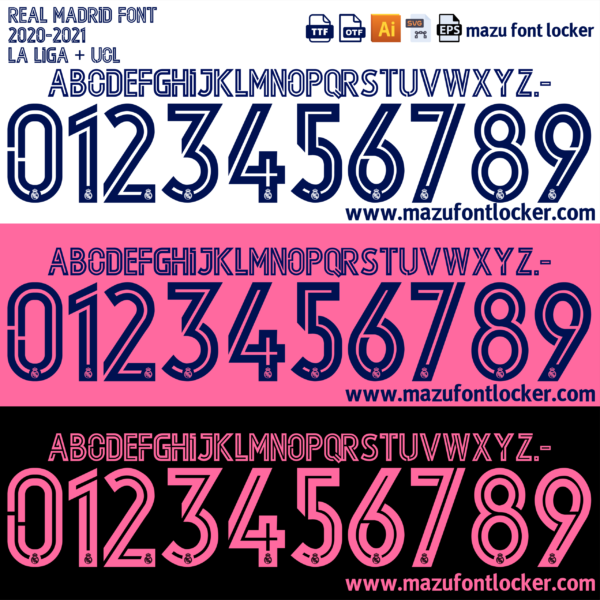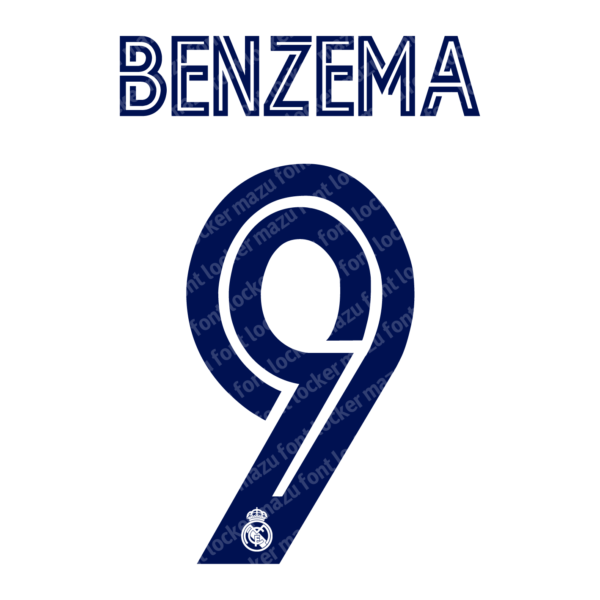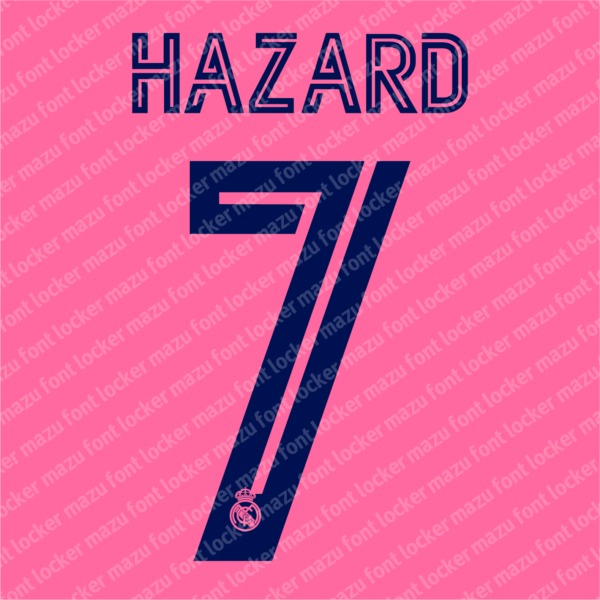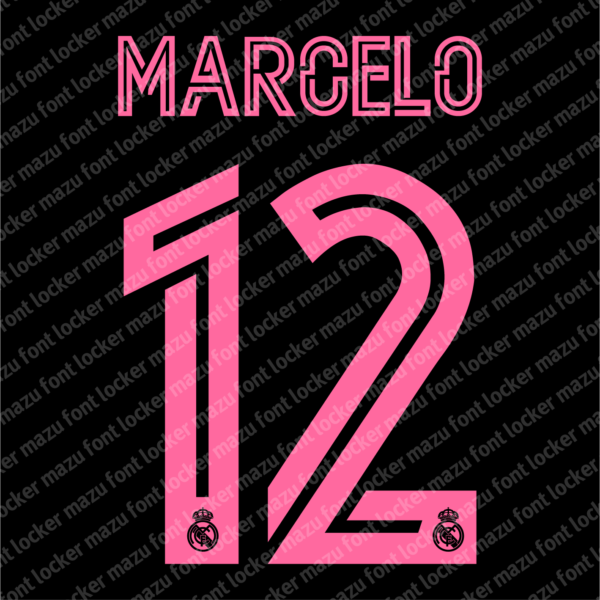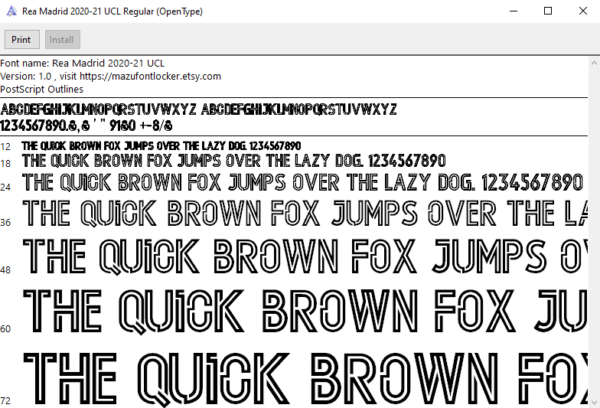
Real Madrid 2020-2021 Font Vector – Dominant Los Blancos Masterpiece
Real Madrid 2020-2021 is a high-quality football jersey font vector designed to replicate the official lettering and numbering style used during the 2020-2021 season. This Real Madrid 2020-2021 font is perfect for designers, football fans, and creators who want accurate and professional jersey customisation.
Inspired by the official kit of Real Madrid, this Real Madrid 2020-2021 font delivers a clean and authentic match-day appearance. Every letter and number has been carefully recreated to match the real jersey design, ensuring your projects look realistic and professional.
Real Madrid 2020-2021 Font Vector – Authentic Jersey Lettering
Real Madrid 2020-2021 Font is a high-quality football jersey font vector created to replicate the official lettering and numbering style used during the iconic 2020-21 Season. Perfect for designers, football fans, and jersey customisation projects, this font set delivers an authentic and professional match-day appearance.
Inspired by the original Real Madrid 2020-2021 team kit, every letter and number has been carefully recreated to ensure accurate retro styling for both digital and print projects.
🔥 Real Madrid 2020-2021 Font Features
- Authentic 2020-2021 Real Madrid jersey lettering style
The authentic lettering style helps recreate the classic look of the Real Madrid 2020-2021 kit with professional accuracy.
Unlike generic jersey fonts, this set is designed with a strong focus on authenticity and accuracy. Every detail is based on the original match lettering style used during the 2020-21 season, helping designers and collectors create realistic football shirt designs.
This Real Madrid 2020-2021 font vector set is designed for authentic football jersey customization and works perfectly for retro football projects, collector designs, and professional sportswear artwork.